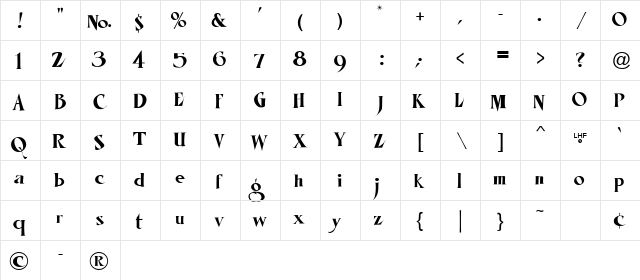
LHF Mister Kooky Regular Font Preview
LHF Mister Kooky Regular
LHF Mister Kooky Regular Font Details
| Foundry | \ Letterhead Fonts Chuck Davis |
Design Context for LHF Mister Kooky Typeface
LHF Mister Kooky is a composed and adaptable typeface that performs quietly and consistently across a wide range of design contexts.